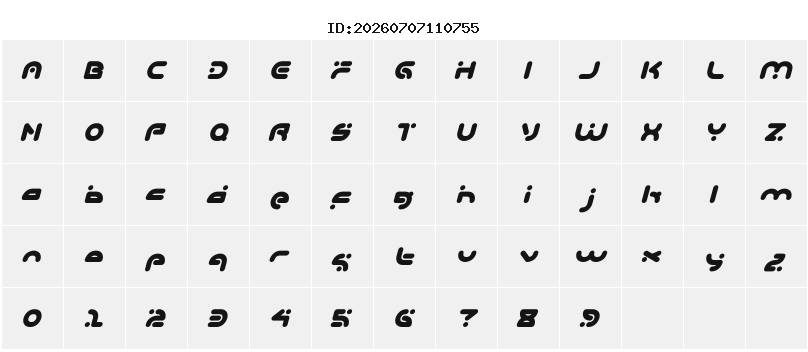
• Font Name: DeliciousOblique
About DeliciousOblique.ttf
DeliciousOblique.ttf is a modern, elegant sans-serif font designed for ultimate readability and visual harmony. Perfect for branding, headlines, web design, and print materials.